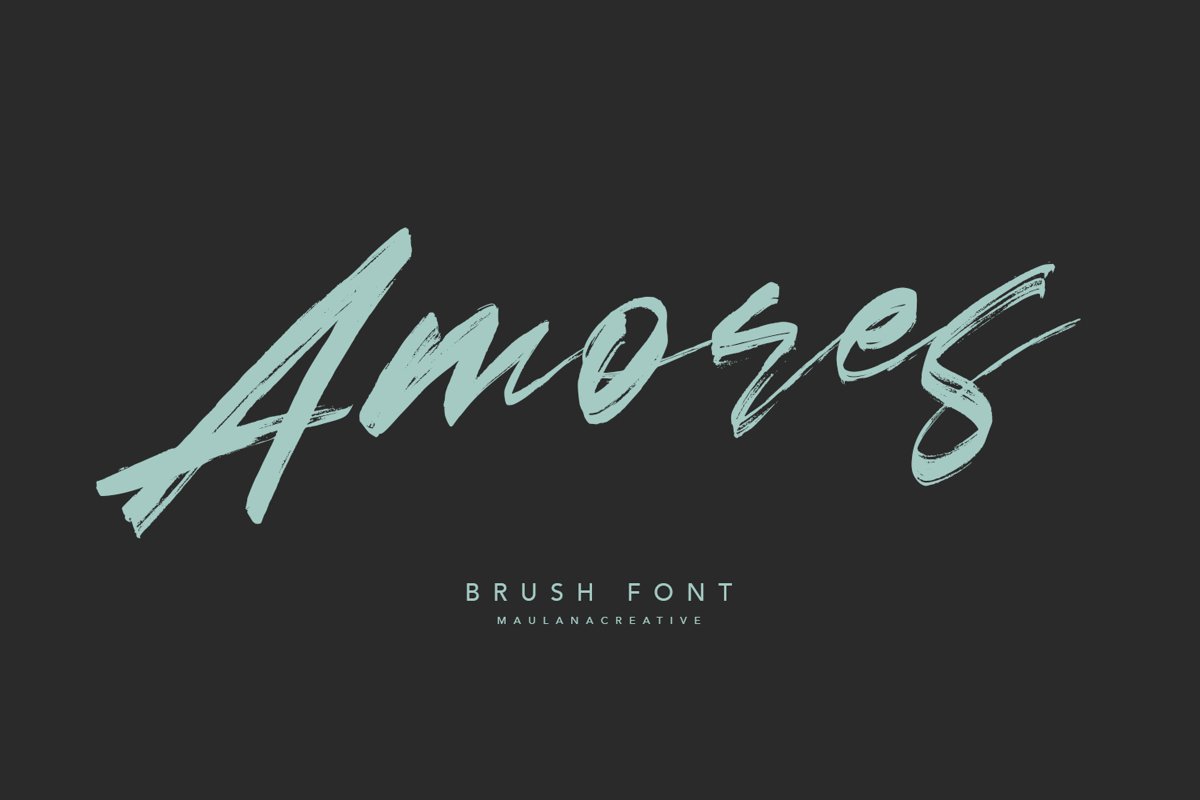
Give your designs an authentic handcrafted feel. "Amores Brush" is perfectly suited to signature, stationery, logo, typography quotes, magazine or book cover, website header, clothing, branding, packaging design and more.